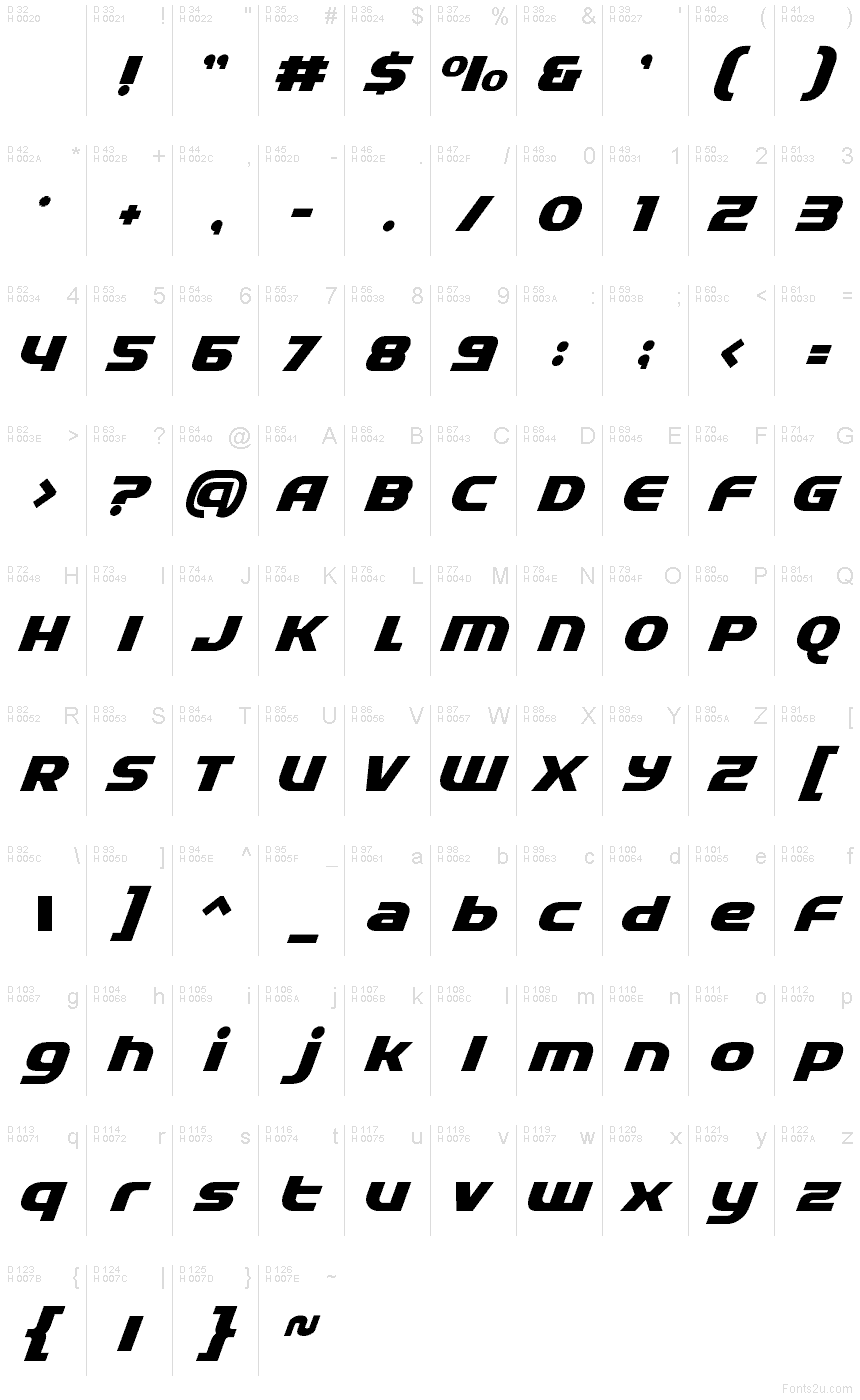
Rapido Racers
Rapido Racers font by PutraCetol Studio is a sleek futuristic techno font characterized by expanded bold characters. The display typeface features italicized letters that feel like they’re in motion, perfect for delivering an energetic vibe. With stylized corners and a modern look, the free font hints at speed with minimalistic curves. All capitals are particularly stylish and incredibly legible either alone or together.
The sharp slots and extended curves make Rapido Racers ideal for car brands and labels, racing magazines, video game designs focused on sports or automobiles, posters promoting car events like car shows and auctions, sports team branding especially for motorsports teams, cosmetics packaging design focusing on cars such as automotive waxes or polishes among others.